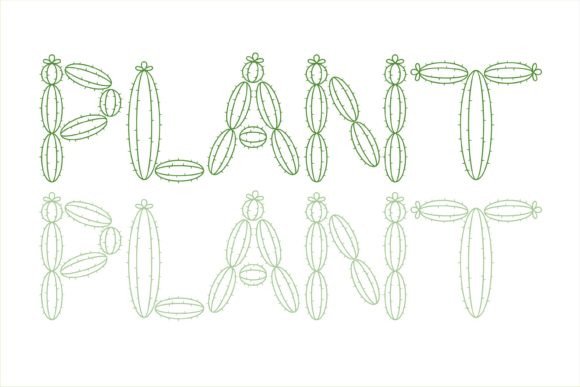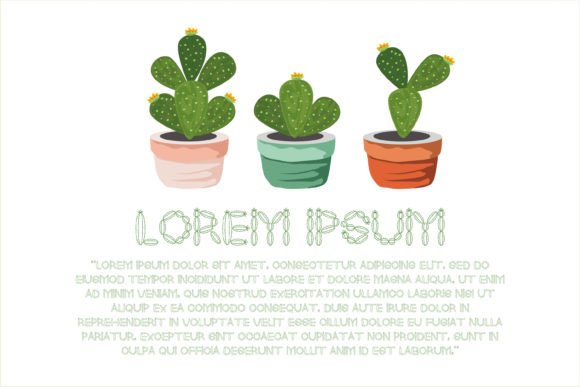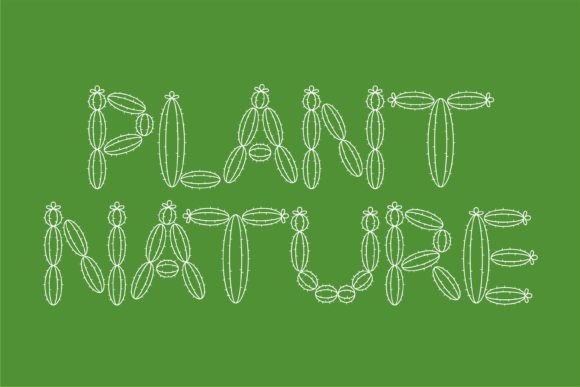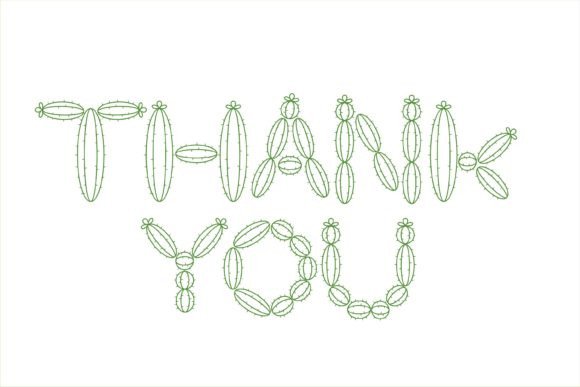
Cactus Tree Font: A Prickly yet Charming Typeface for Designers
Are you a designer or crafter looking for a unique and eye-catching font to add a touch of whimsy to your projects? Look no further than the Cactus Tree Font, a decorative typeface that combines the spiky charm of cacti with a playful, cartoon-inspired aesthetic. In this article, we’ll dive into the world of Cactus Tree Font, exploring its features, uses, and benefits for designers and crafters.
What is Cactus Tree Font?
Cactus Tree Font is a decorative typeface that takes inspiration from the iconic cactus plant. With its bold, spiky lines and rounded shapes, this font is perfect for adding a touch of desert charm to your designs. The font features a unique blend of sharp and smooth elements, creating a visually striking effect that’s sure to grab attention.
Features of Cactus Tree Font
- Unique and eye-catching design: The Cactus Tree Font boasts a one-of-a-kind design that’s sure to make your projects stand out from the crowd.
- Cartoon-inspired aesthetic: This font’s playful, cartoon-inspired vibe makes it perfect for use in children’s books, educational materials, and other projects aimed at a young audience.
- Environmental themes: The cactus plant theme also makes this font an excellent choice for environmental-themed projects, such as eco-friendly packaging, conservation campaigns, and outdoor-inspired designs.
- Highly versatile: Cactus Tree Font can be used in a wide range of design applications, from digital projects like social media graphics and website headers to print materials like posters, flyers, and business cards.
Uses of Cactus Tree Font
- Cartoon-themed designs: Use Cactus Tree Font to add a playful touch to your cartoon-themed designs, such as character illustrations, comics, and animated videos.
- Environmental illustrations: This font is perfect for illustrations that highlight environmental issues, such as conservation, sustainability, and eco-friendliness.
- Crafting and DIY projects: Cactus Tree Font can add a fun and creative touch to your crafting and DIY projects, such as handmade cards, gift tags, and paper crafts.
- Branding and packaging: Use this font to create eye-catching branding and packaging designs that stand out on store shelves and online.
Benefits of Using Cactus Tree Font
- Adds a touch of whimsy: Cactus Tree Font brings a playful, whimsical touch to your designs, making them more engaging and memorable.
- Stand out from the crowd: With its unique design, Cactus Tree Font helps your projects stand out from the crowd and grab attention.
- Perfect for environmental themes: This font’s cactus plant theme makes it an excellent choice for environmental-themed projects, conveying a sense of sustainability and eco-friendliness.